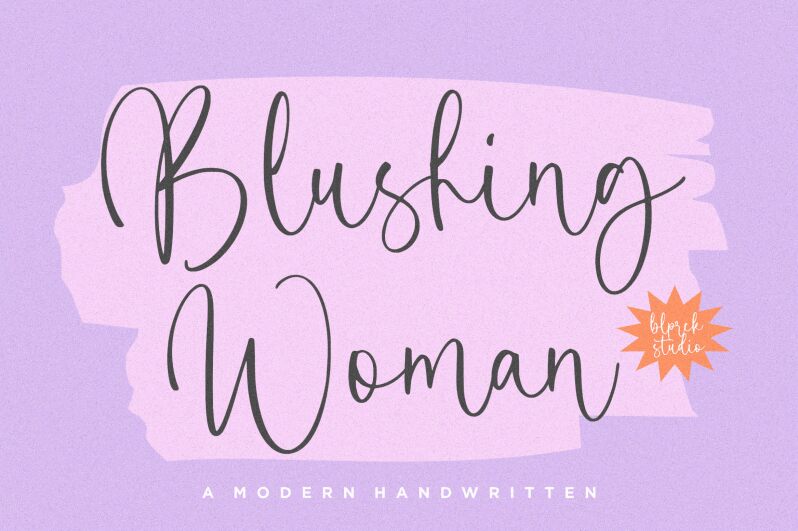
Blushing Woman
Blushing Woman font is designed by Balpirick Studio. This is an elegant, flowing, script-like handwritten font that exudes modern elegance and class with its high contrast and smooth curves. Perfectly balanced with casual yet refined characters that include playful mood and artistic flourish strokes so this works well in beautiful handwriting designs.
This handcrafted typeface works best in various applications such as stationery art, blog posters, weddings, social media posts, branding and much more.